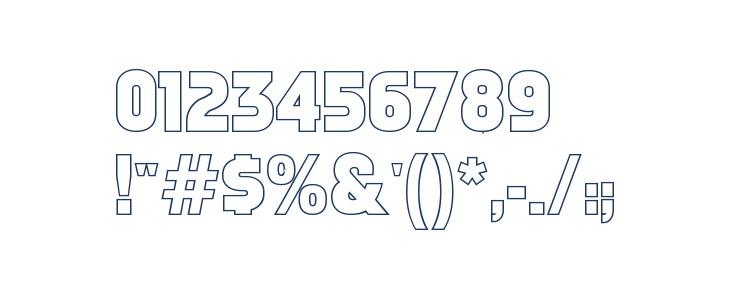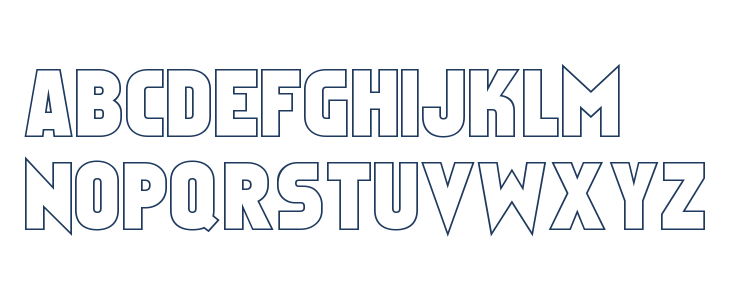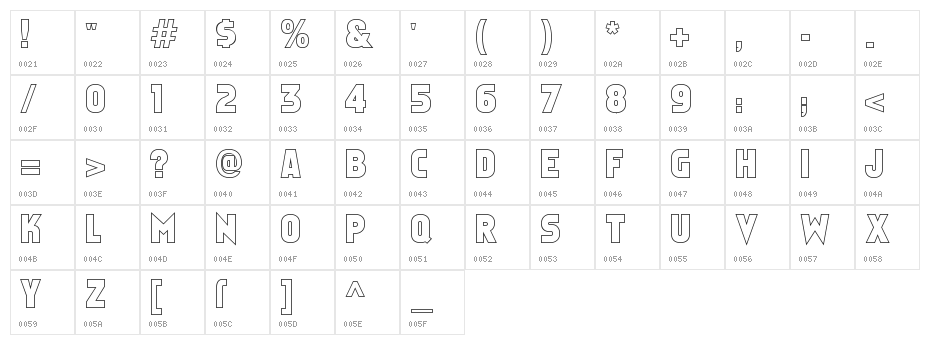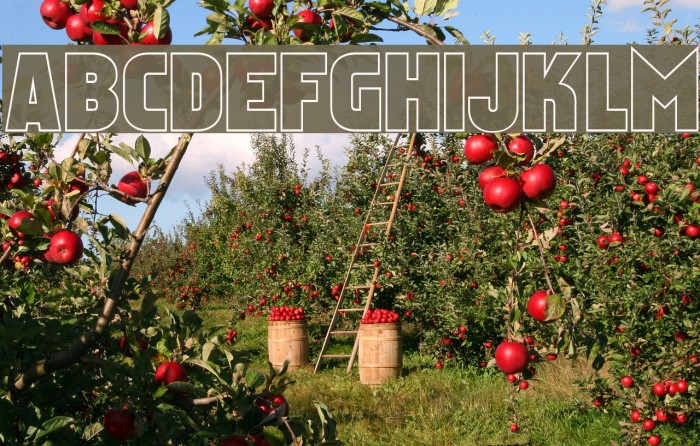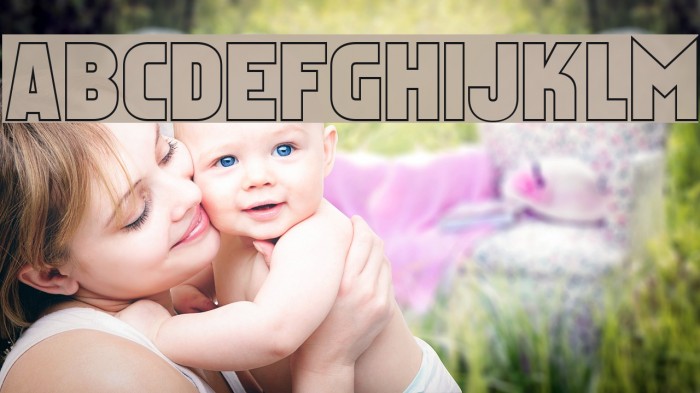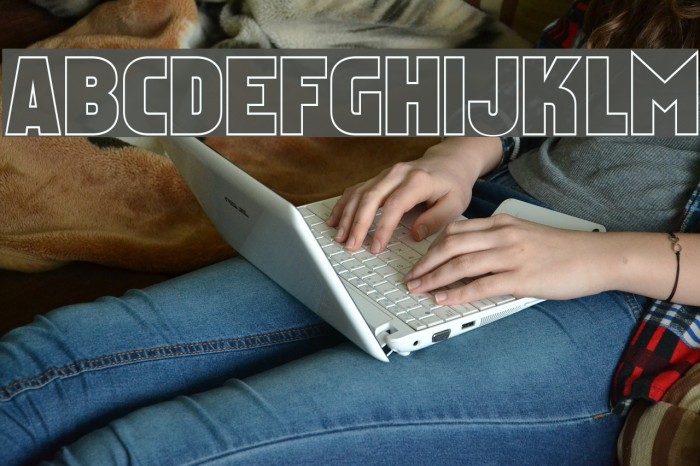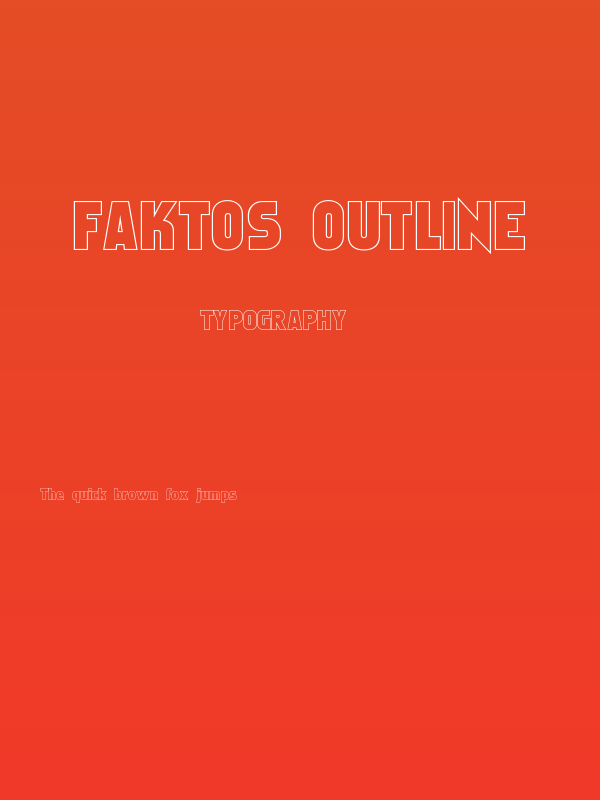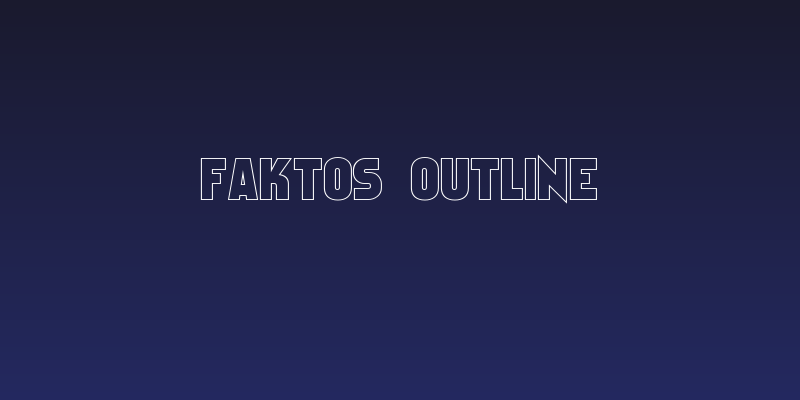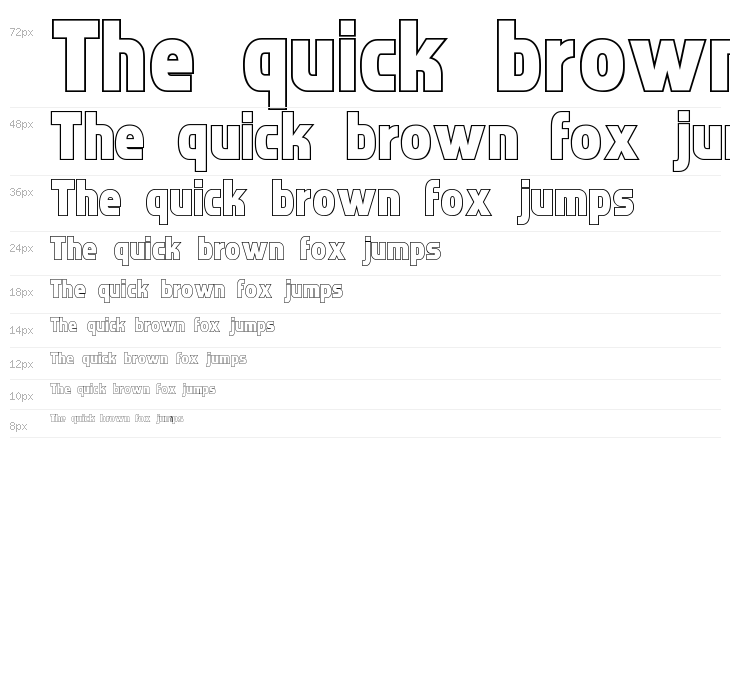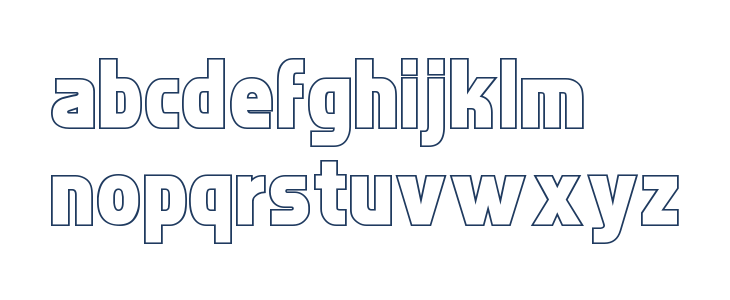
Faktos Outline Font
Faktos Outline Description
This font features a bold, geometric outline style that gives it a strong and impactful appearance. The uppercase and lowercase letters are designed with clean, sharp edges and consistent line thickness, creating a cohesive and modern look. The numerals and special characters maintain the same stylistic approach, ensuring uniformity across all glyphs. This font's outline design makes it ideal for creating eye-catching headlines and titles, as it stands out against various backgrounds. Its structured form and clarity make it suitable for both digital and print media, where a contemporary and bold statement is desired.